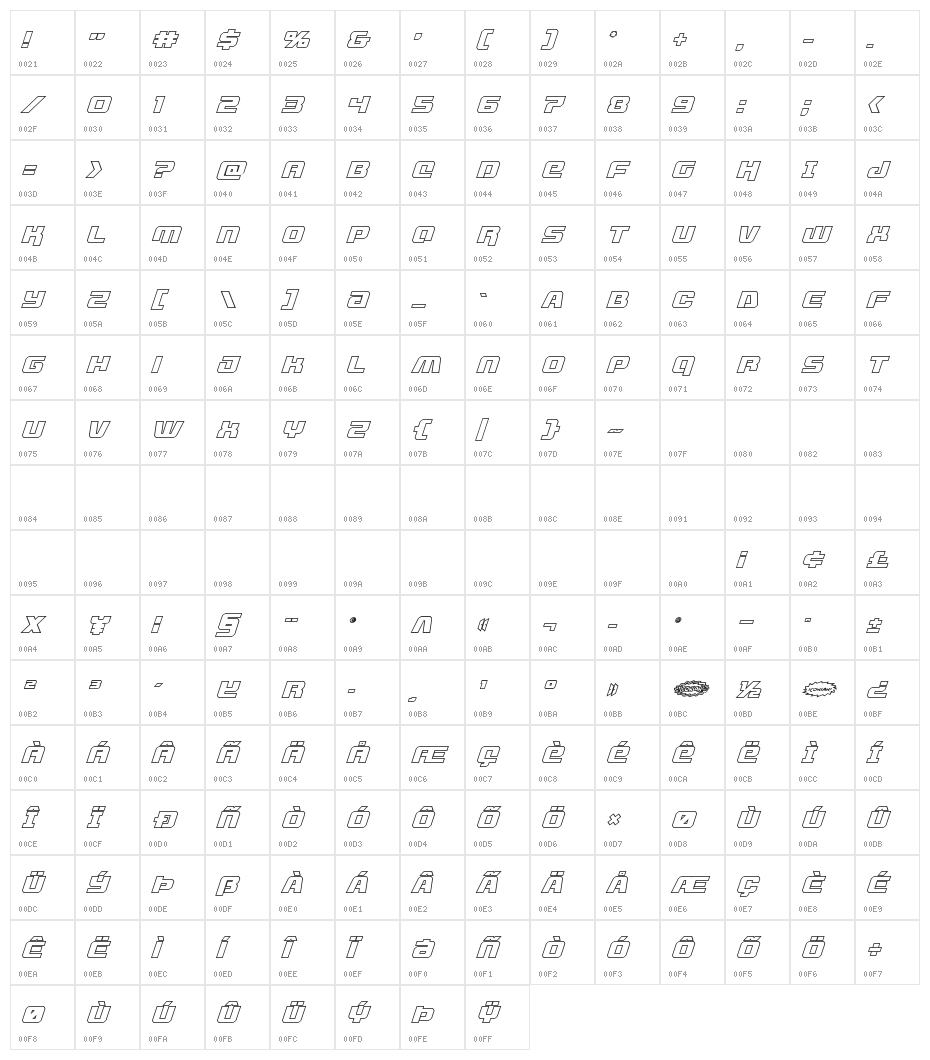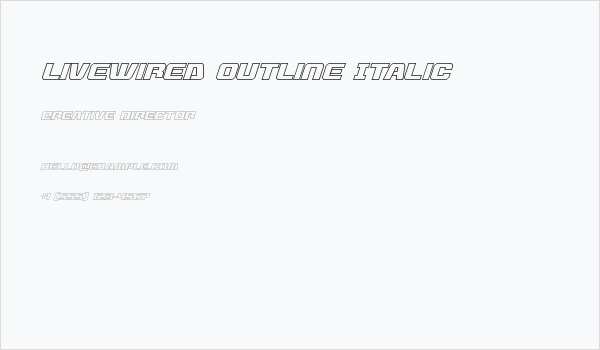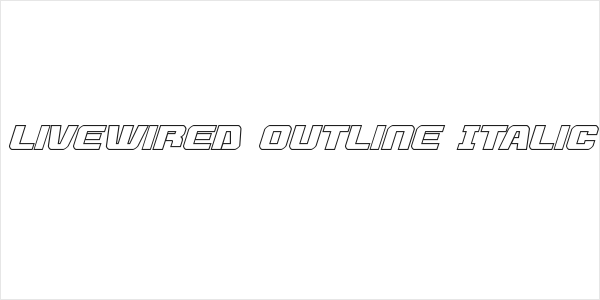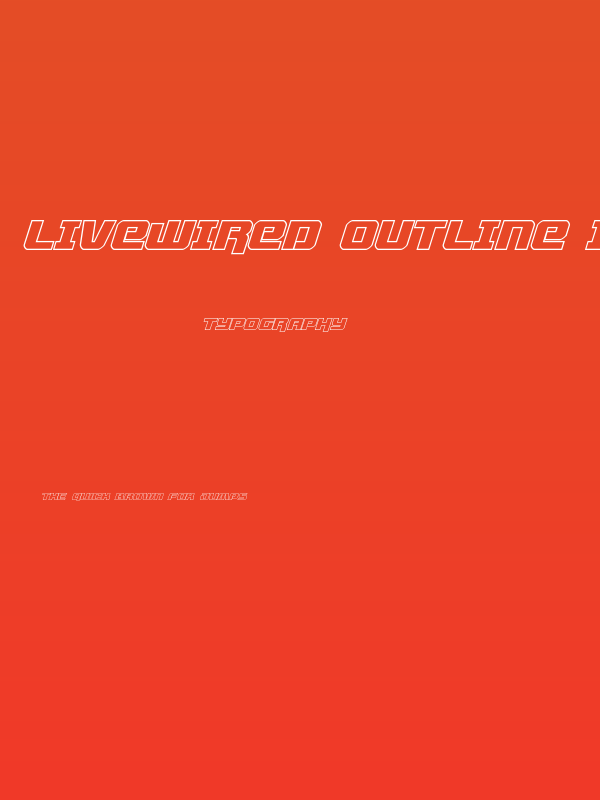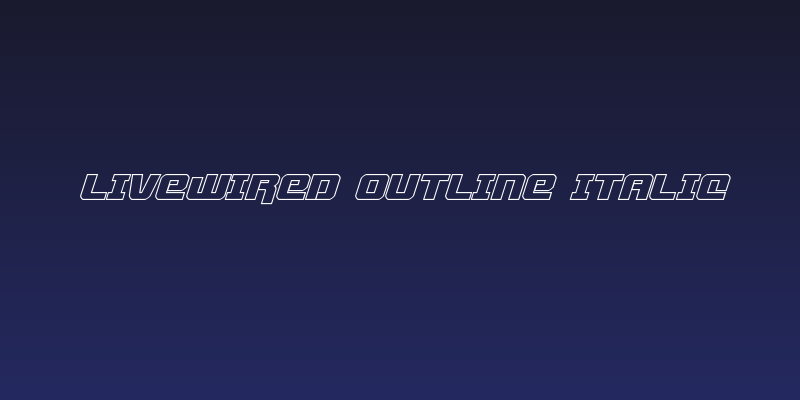
Livewired Outline Italic Font
Livewired Outline Italic Description
This font features a bold, futuristic design with an outline style that gives it a three-dimensional appearance. The italicized slant adds a dynamic and energetic feel, making it stand out in any design. The characters are uniformly structured with sharp angles and clean lines, creating a sense of precision and modernity. The uppercase and lowercase letters maintain a consistent style, while the numerals and special characters complement the overall aesthetic. This font is ideal for projects that require a contemporary and edgy look, such as technology-related branding or sci-fi themed designs.
| Proposed Projects | Ideal for technology branding, sci-fi themes, video game titles, and modern advertising. |